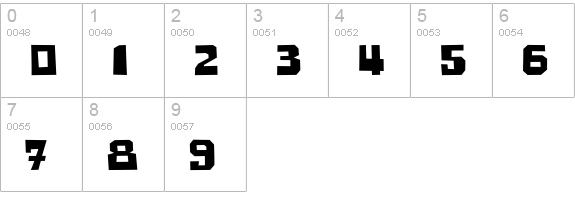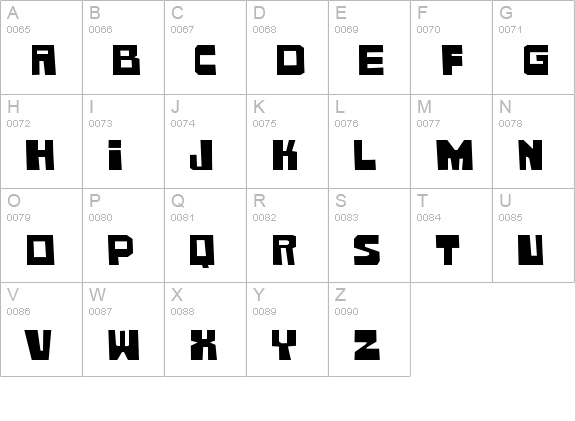
Buster-Bold Font Details
Buster-Bold is a strong, high-contrast variant in the Buster typeface family \xE2\x80\x94 well suited to headlines, attention-grabbing titles, and strong calls-to-action.
Introducing Buster-Bold font, a versatile and modern typeface that exudes strength and confidence. With its bold and impactful letterforms, Buster-Bold is perfect for making a statement in headlines, logos, posters, and more. This font is designed to grab attention and leave a lasting impression. What's even better is that Buster-Bold is available for free download at FontsMarket.com! Whether you're a designer looking to add a bold touch to your projects or a content creator searching for a standout font, Buster-Bold has got you covered. Don't miss out on this opportunity to elevate your designs with this eye-catching typeface. Download Buster-Bold today and let your creativity shine!